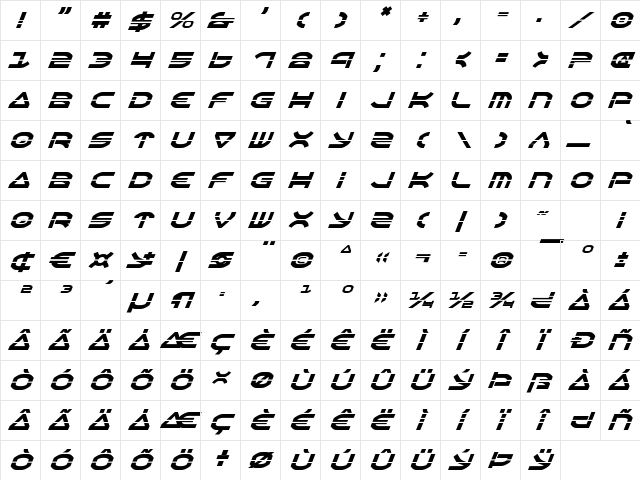
Oberon Laser Italic Free Font
Oberon Laser Italic Laser Italic
Style: Laser Italic
Design Context for Oberon Laser Italic
Oberon Laser Italic is a composed and adaptable typeface that performs quietly and consistently across a wide range of design contexts. The slanted form adds forward momentum and visual energy.